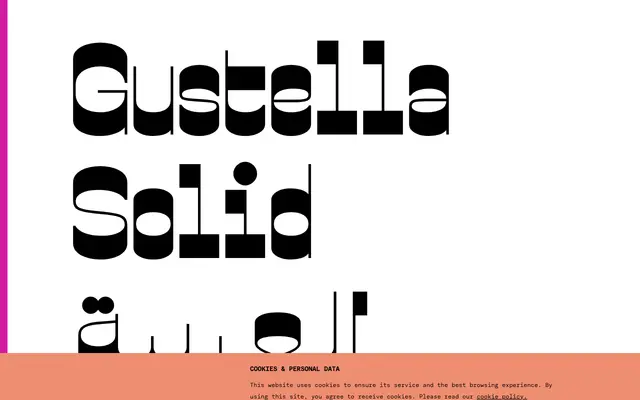
Gustella Solid Arabic
The Arabic extension of Thomas Thiemich's reverse-contrast Gustella Solid, adding Arabic script support across four weights alongside a comprehensive Latin character set.
Originally released as part of the Gustella superfamily in May 2019, the Arabic version followed in December 2020, bringing both Latin and Arabic script coverage to Thiemich's extreme reverse-contrast design. The four weights run from Thin to Bold, sharing identical metrics with the other Gustella variants — Stripes, Inline and Boxed — making overprinting possible across the full superfamily. OpenType features include stylistic alternates for specific Latin letterforms, mirrored glyphs, Arabic-specific ligatures, and a Latin figures option for Arabic contexts.
Gustella Solid Arabic is a reverse-contrast display typeface with extreme stroke contrast, rooted in the tradition of 19th-century slab display lettering and 1970s hippie-influenced high-contrast typography, extended to cover both Latin and Arabic scripts.